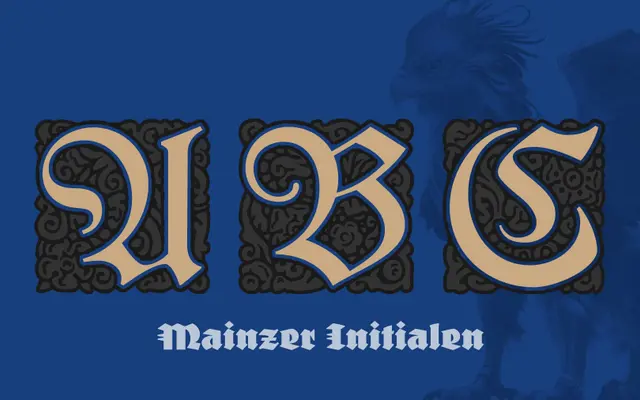
Mainzer Initialen
A digitisation of early 20th-century blackletter initials from Ferd. Theinhardt and H. Berthold, released as modern colour fonts in OpenType SVG and COLR/CPAL formats.
Originally published by Berlin type foundries Ferd. Theinhardt and H. Berthold, these 26 German blackletter capitals have been carefully redrawn by Ralf Herrmann and extended into three-colour variants. The package ships as ten OpenType SVG fonts each with its own three-colour palette, plus a COLR/CPAL webfont whose colours can be overridden via CSS, and a standard single-colour OpenType file for broader compatibility. With no lowercase, figures or diacritics, it is a specialist tool for decorative initials in German editorial and logotype work.
A digitisation of historical blackletter capital initials originally published in the early 20th century; no lowercase exists, placing it squarely in decorative blackletter display use.